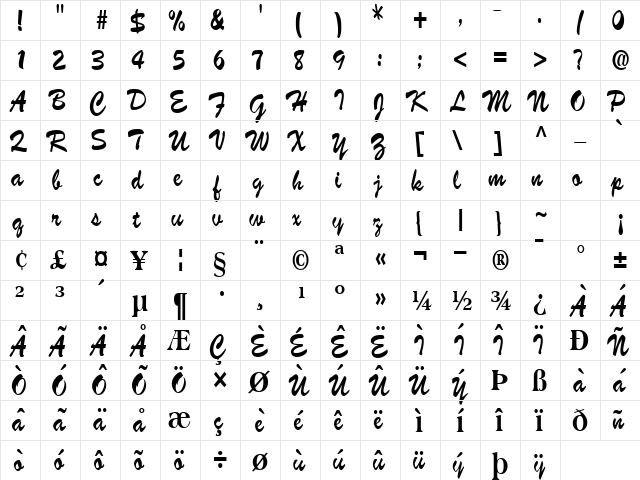
Delray Regular
Design Context for Delray Typeface
Delray is a composed and adaptable typeface that performs quietly and consistently across a wide range of design contexts.